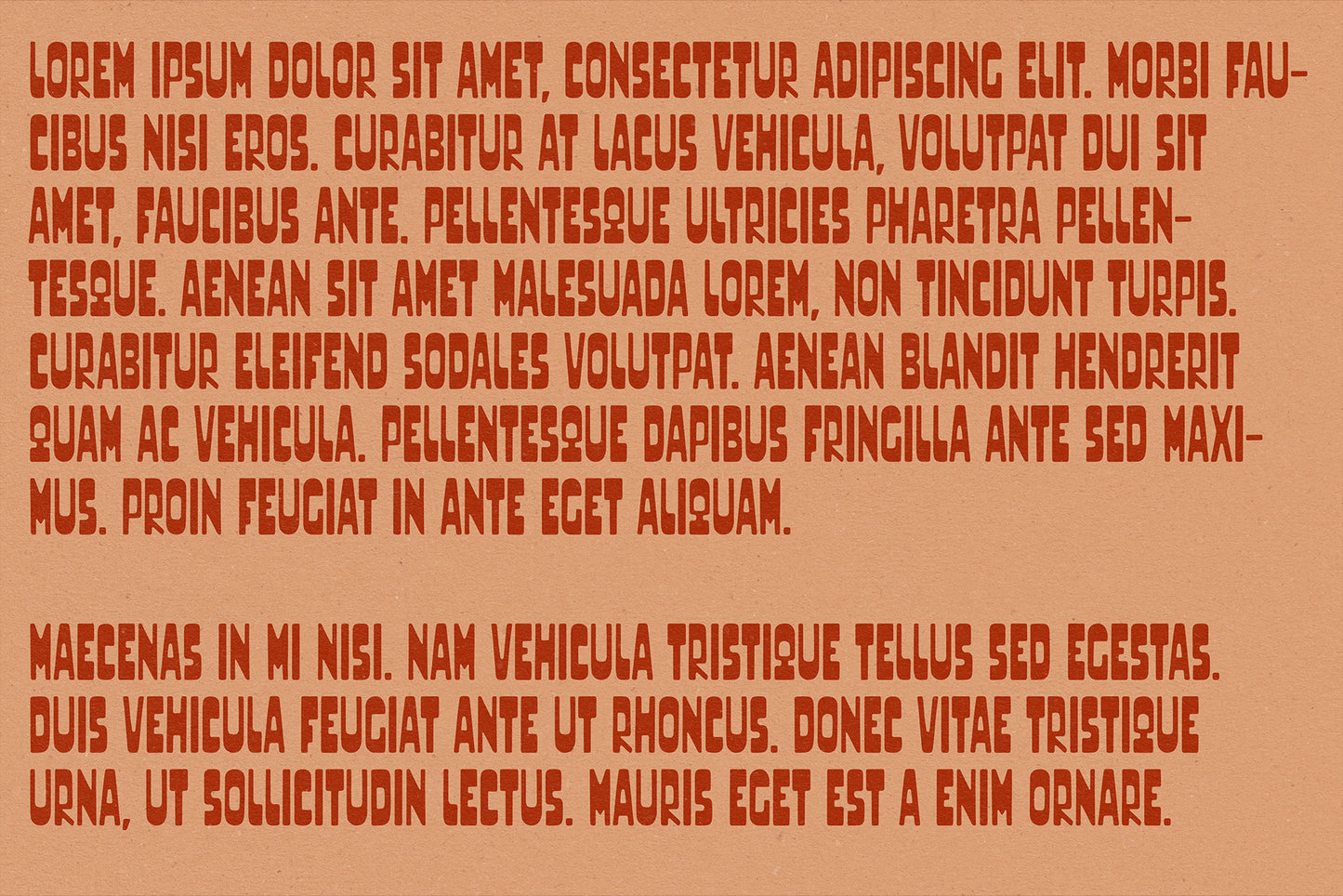
Siesta Typeface
Siesta is a tall bold typeface inspired by the unique hand painted signs of shops and delis across Spain. In this typeface I wanted to capture the nonchalant and somehow upbeat vibe of what I imagined it would be like to paint my shop sign one sunny afternoon in a pre-internet rural town while everyone is having their siesta.
I love this one for a fun, playful project where you want the letters to stand out and make people take a second look.